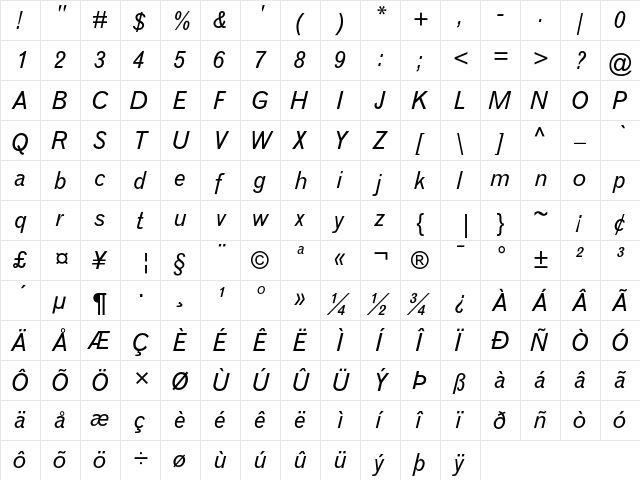
Grotesque MT Italic
Design Context for Grotesque MT Typeface
Grotesque MT offers clean, dependable letterforms without strong stylistic allegiance, making it a practical choice for designers who need flexibility. The dynamic lean of this cut emphasises speed and emphasis in any layout.
Pro Tip: Try Grotesque MT for annotation and caption copy alongside an upright companion — the contrast in angle creates a dynamic but ordered typographic system.